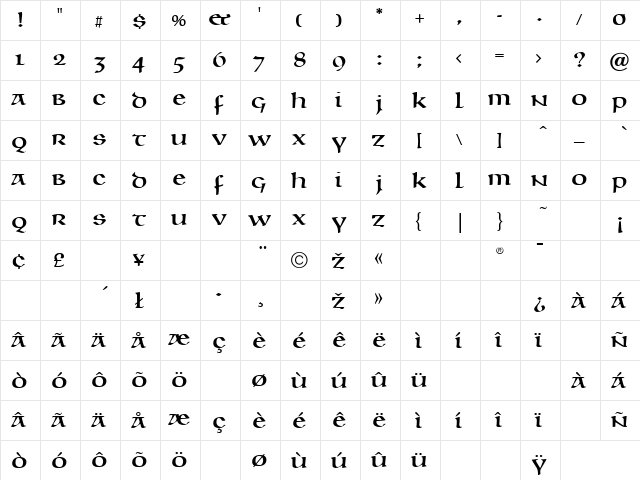
Unciala Regular
Design Context for Unciala Typeface
Unciala takes a measured approach to typography — its balanced proportions and neutral character make it a reliable workhorse for both digital and print work.